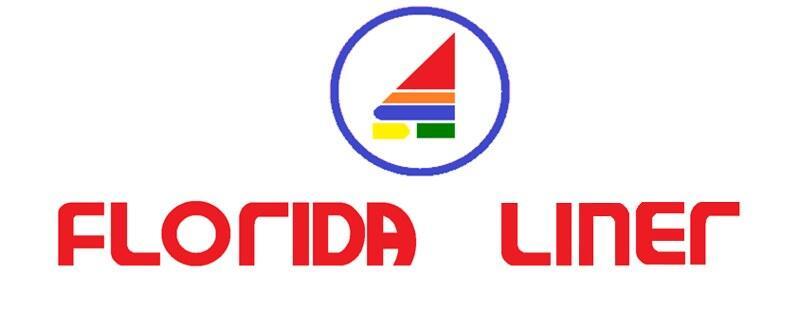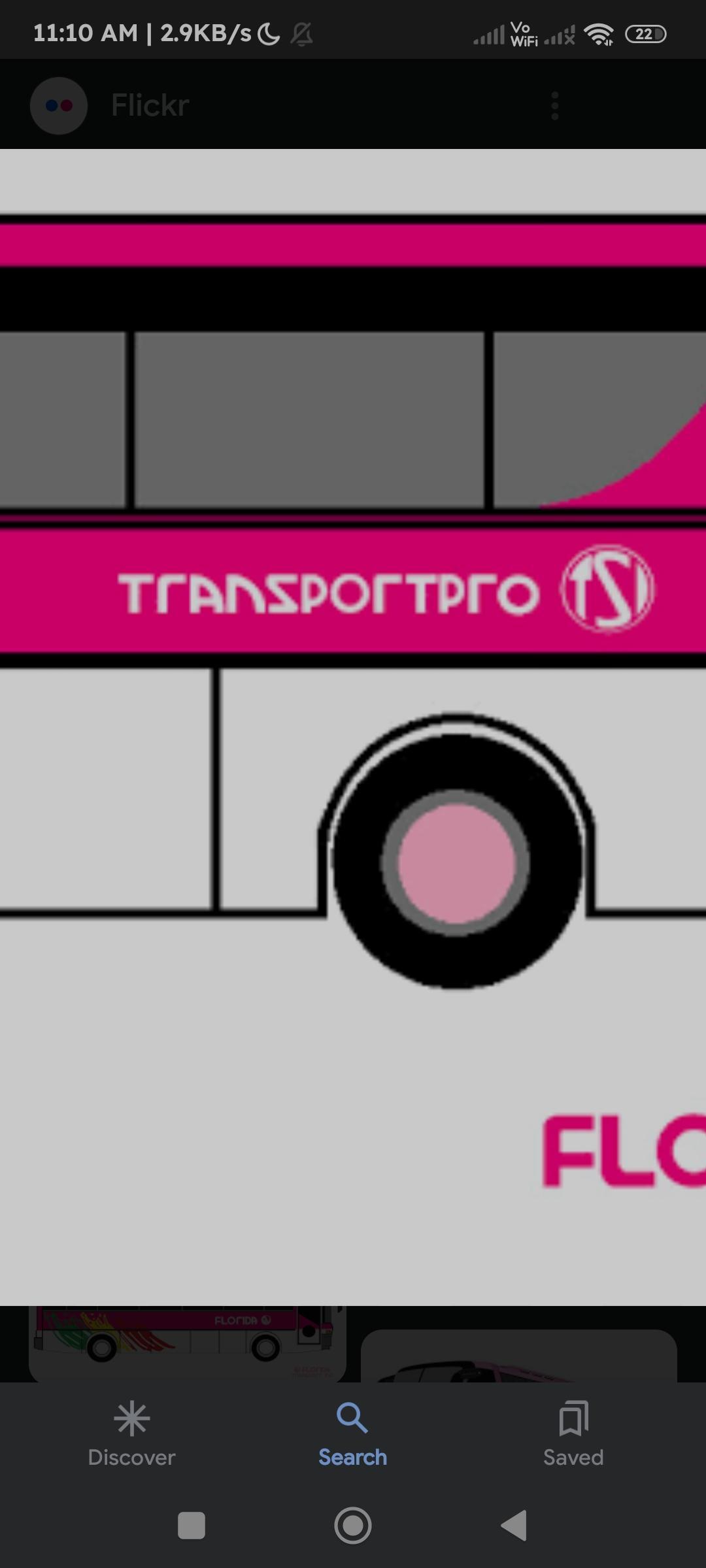
Hello, I am a bus enthusiast in my country (Philippines), and this bus company, GV Florida, is one of the biggest, yet I cant find the name of its font, can anyone help me?
The bus company names seen here belong to the GV Florida bus company, a very well known bus country here in the Philippines, the other company seen here (Transportpro) is its sister company, the source I got this from made it by hand (Flickr). I dont know if this is an actual font or not, but if it is, I just need the name of the font, I did some looking up and the A seems pretty similar to the 00625 font's A but is a bit simpler, I hope you can help me, thnx.
Sorry, but I can’t find a match to either the logotype or the TRANSPORTPRO type anywhere. It is such a strange mix of letter styles that I suspect it is custom to the company.